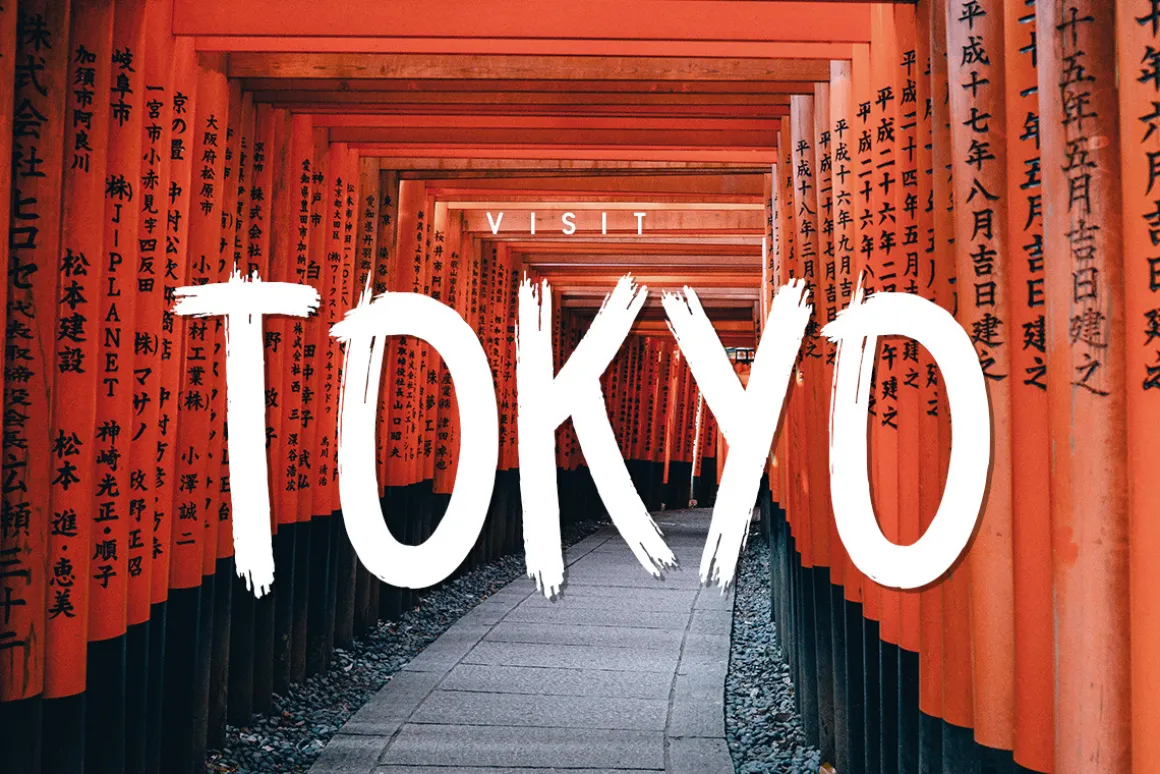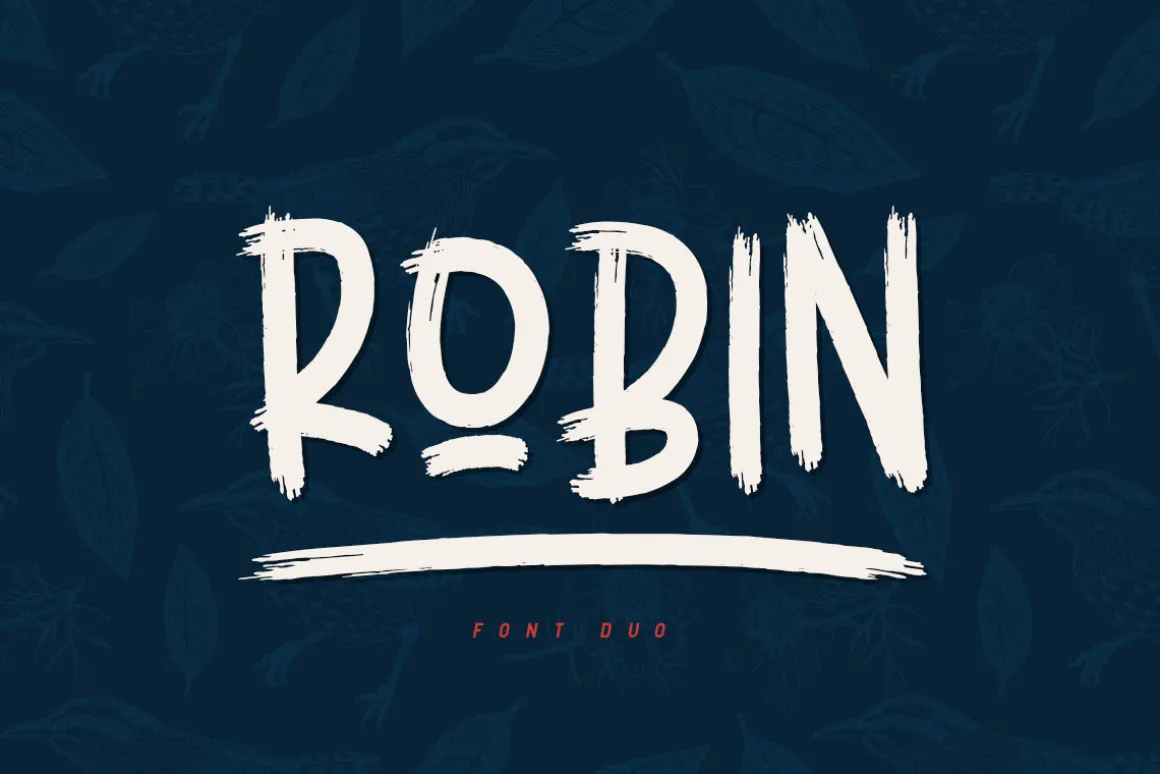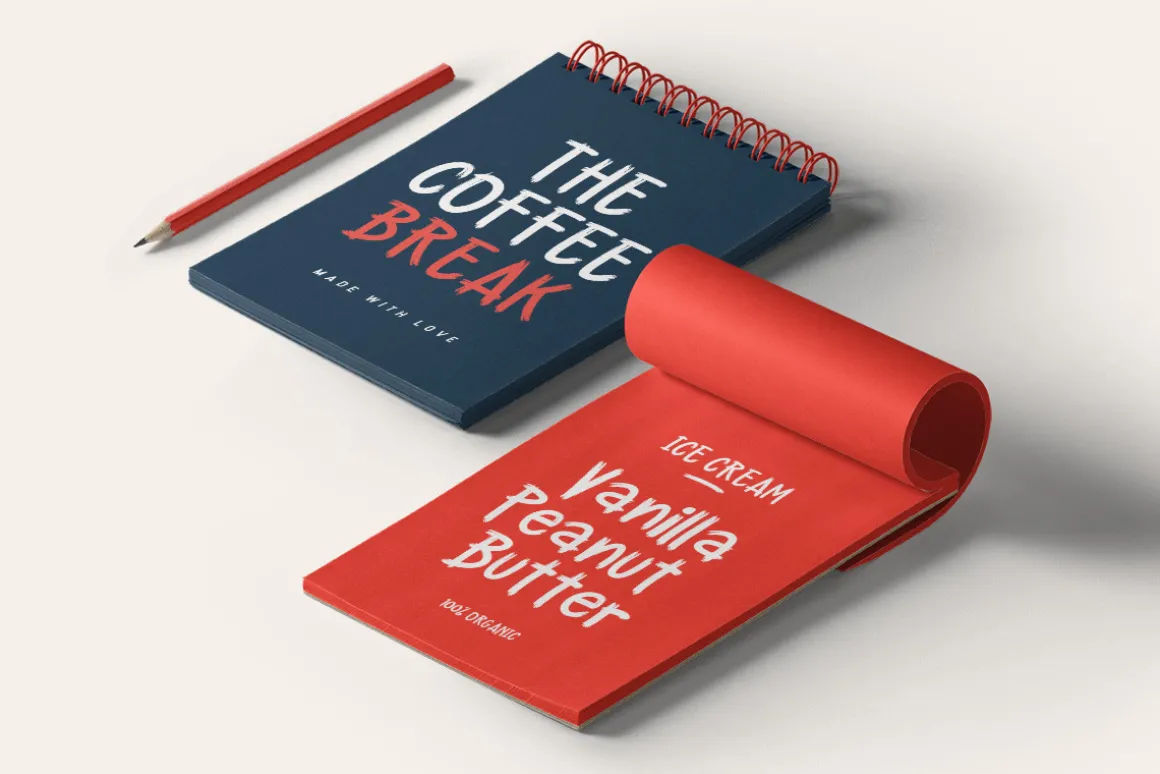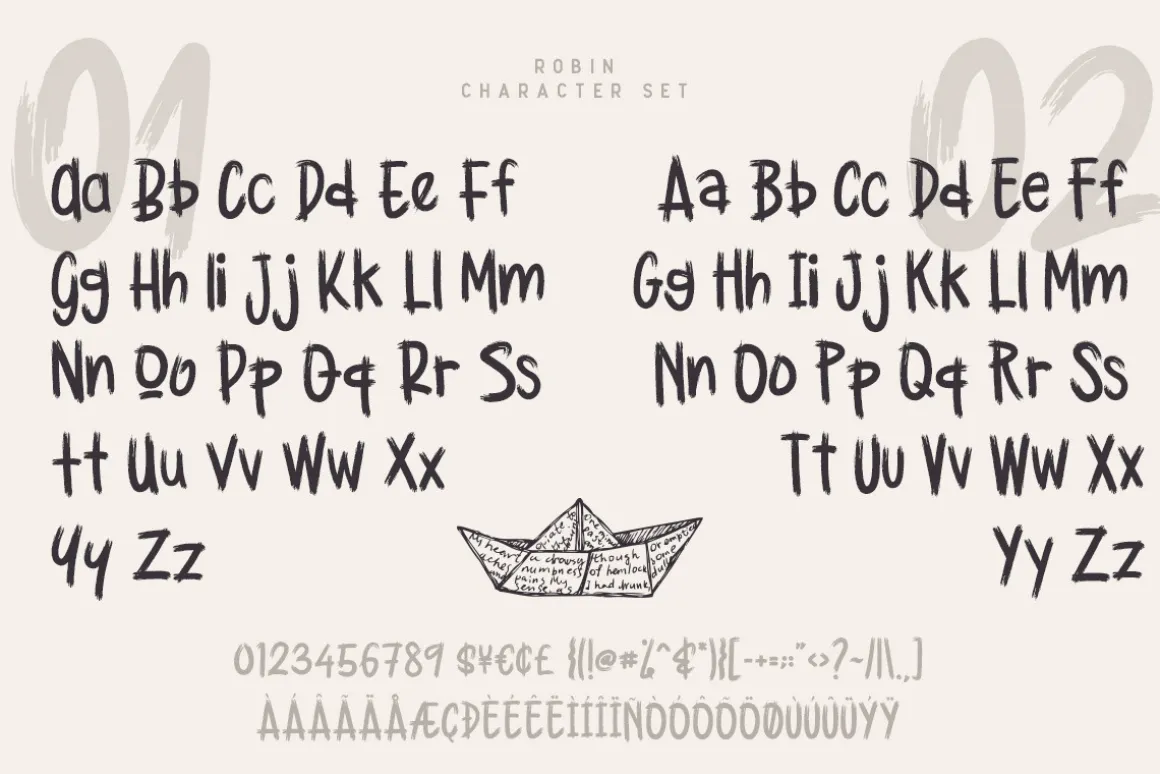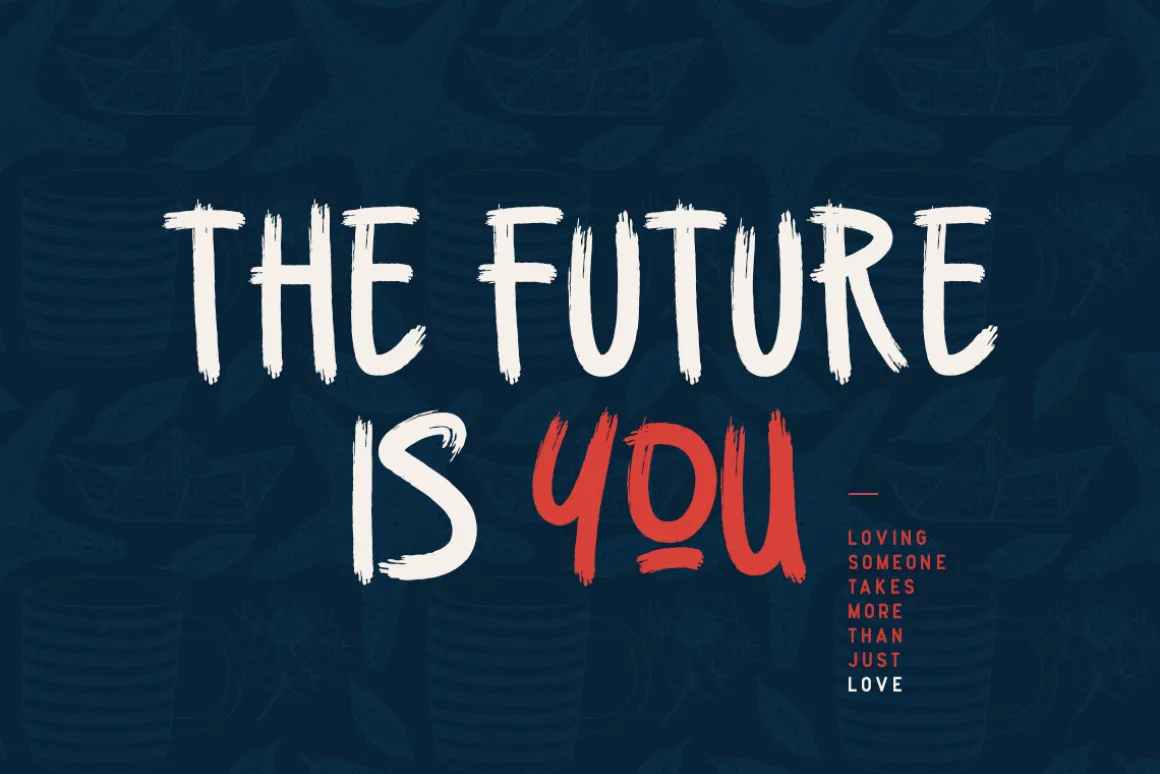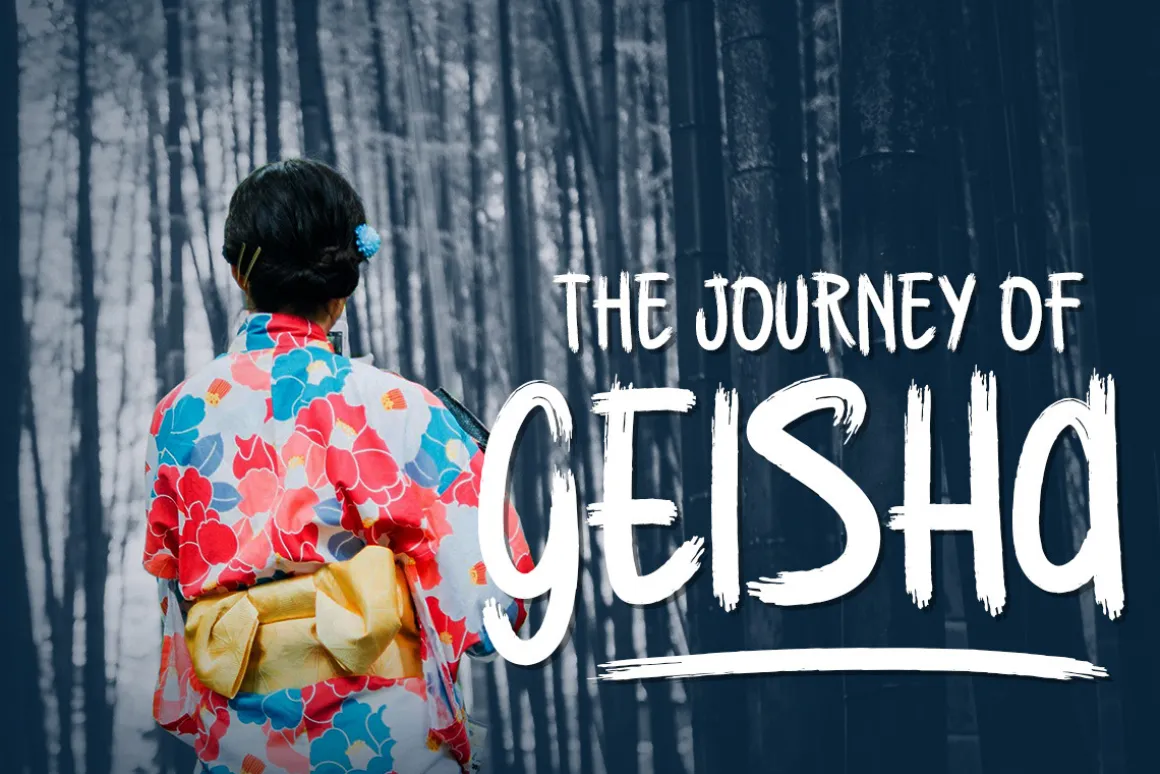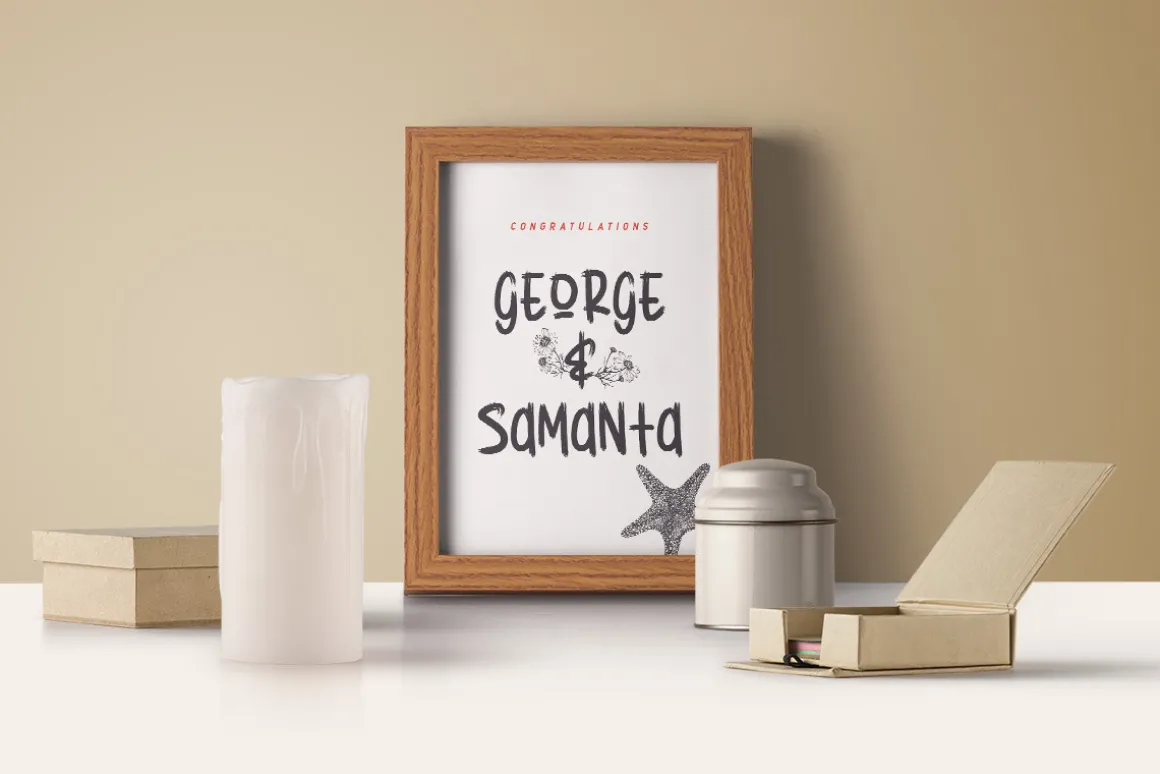
Robin is a hand drawn brush font. It includes 2 versions, to simulate your lovely design. Perfect for many different projects: quotes, blog header, poster, wedding, branding, logo, fashion, apparel, letter, invitation, stationery, etc.
Foreign languages support: ÀÁÂÃÄÅÆÇÈÉÊËÌÍÎÏÐÑÒÓÔÕÖØÙÚÛÜÝßàáâãäåæçèéêëìíîïðñòóôõöøùúûüýÿ